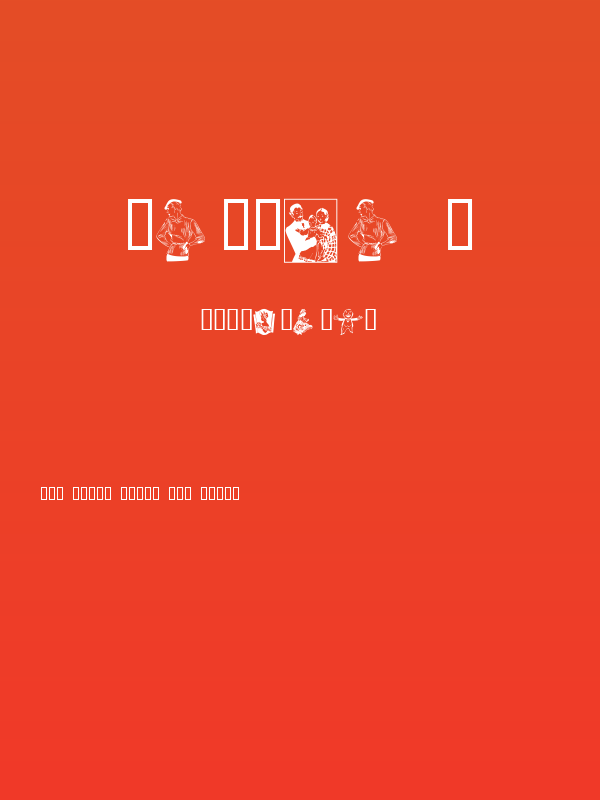
People 1 Font
People 1 Description
A decorative dingbat font featuring vintage-style illustrations of people in various poses and attire, rendered in black and white with a hand-drawn, cartoonish aesthetic.
Overall StyleVintage, Decorative
Use CaseIllustrative accents, decorative elements, thematic graphics.
Proposed ProjectsGreeting cards, posters, scrapbooking, invitations, retro-themed designs, educational materials.